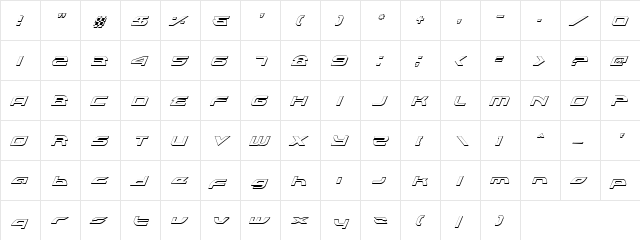
Alexis Lower Outline Italic Lower Outline Italic
Design Context for Alexis Lower Outline Italic Typeface
Alexis Lower Outline Italic is built around its visual character rather than neutral utility — its distinctive forms are designed to make an impression at display sizes. The dynamic lean of this cut emphasises speed and emphasis in any layout.
Font Pairing: Pair with a clean neutral sans-serif for body copy to let Alexis Lower Outline Italic's character lead without overwhelming the composition.
Pro Tip: Use Alexis Lower Outline Italic exclusively at display sizes — it was designed to be seen, not read at length. Let a neutral companion handle body copy.